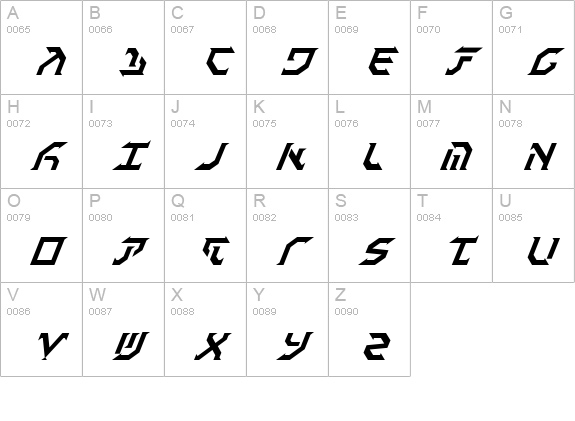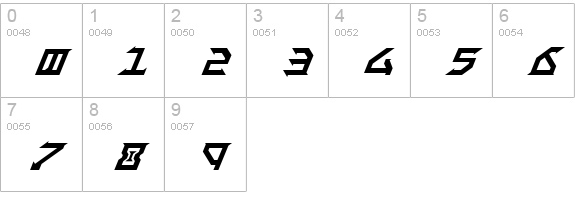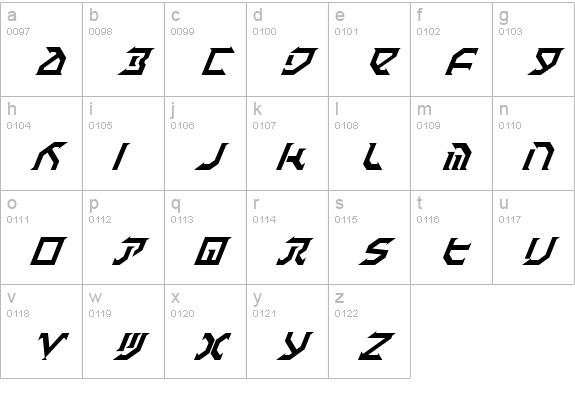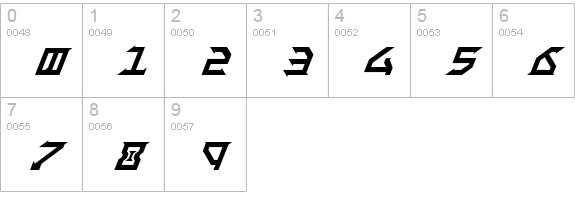
Fantazian Italic Font Details
Fantazian Italic is a distinctive, italic variant in the Fantazian typeface family \xE2\x80\x94 well suited to design and typography projects.
Fantazian Italic is a beautifully crafted font that exudes elegance and sophistication. Its sleek and slanted design gives a touch of modernity while maintaining a timeless charm. The graceful curves and unique letterforms of Fantazian Italic make it perfect for adding a touch of class to any design project. What makes Fantazian Italic even more appealing is that it is available for free download at FontsMarket.com. This means that you can easily access this stunning font to elevate your designs without any cost. Whether you're working on a branding project, a website design, or any other creative endeavor, Fantazian Italic is sure to make a statement and leave a lasting impression. Download Fantazian Italic today and take your designs to the next level!